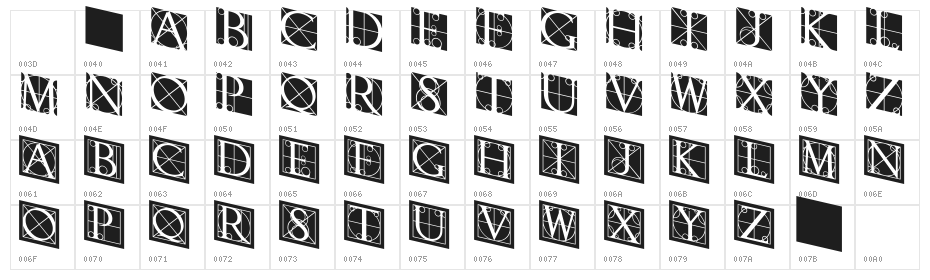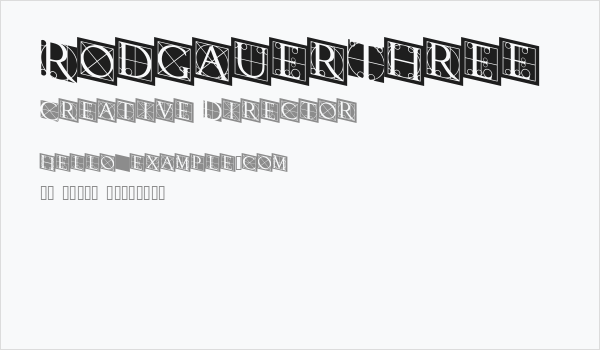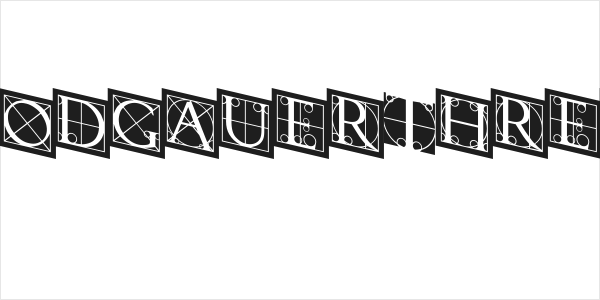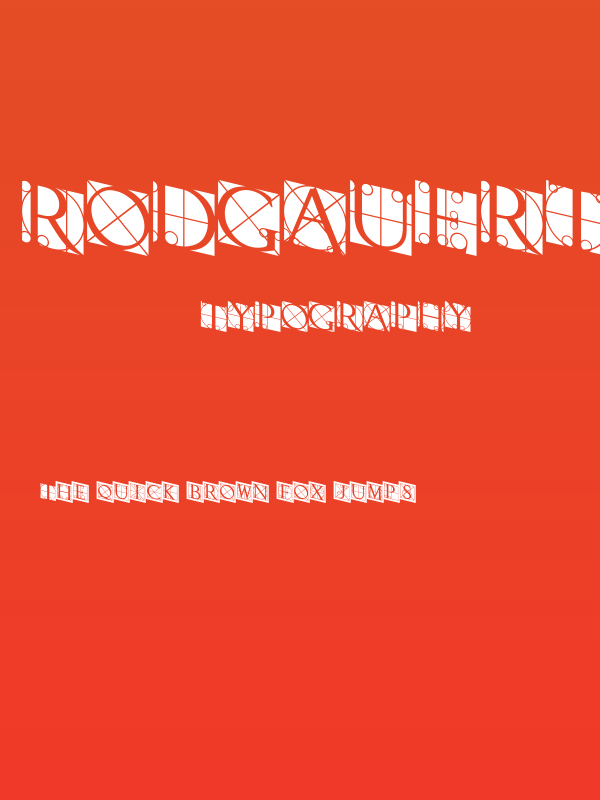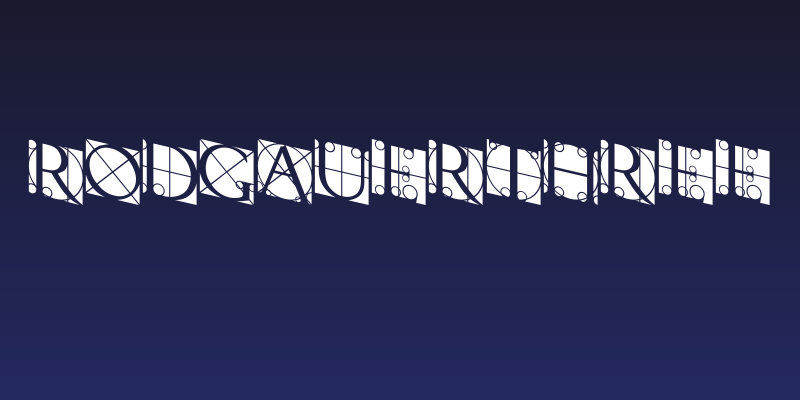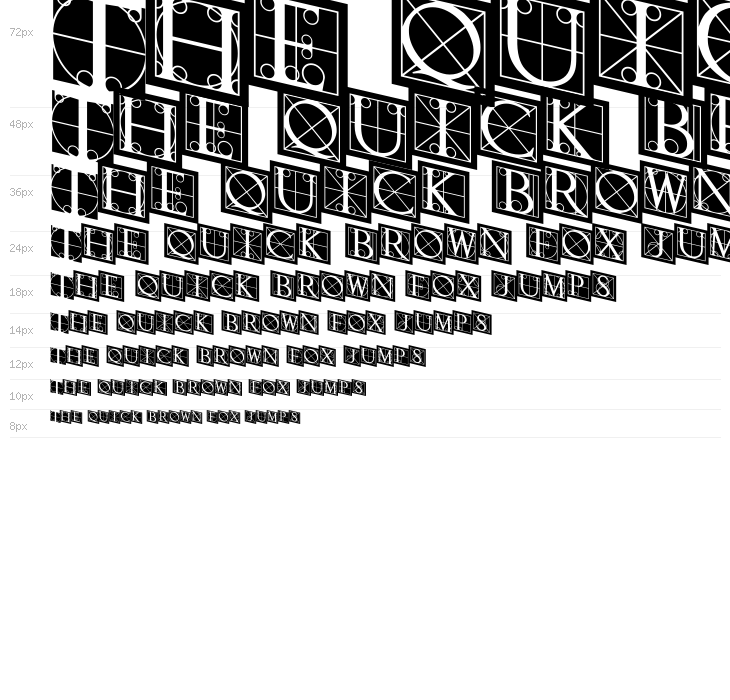
RodgauerThree Font
RodgauerThree Description
This font features a highly decorative and geometric design, with each letter enclosed in a rectangular frame. The characters are composed of intricate lines and circles, creating a complex and artistic appearance. The use of geometric shapes gives it a modern and abstract feel, making it stand out as a unique display typeface. The bold lines and high contrast between the black and white elements enhance its visual impact, making it suitable for eye-catching designs. The font lacks lowercase letters and numerals, focusing solely on uppercase characters, which are consistent in style and form.
| Overall Style | Modern, Decorative |
| Proposed Projects | Ideal for posters, album covers, branding, and any project requiring a bold, artistic statement. |